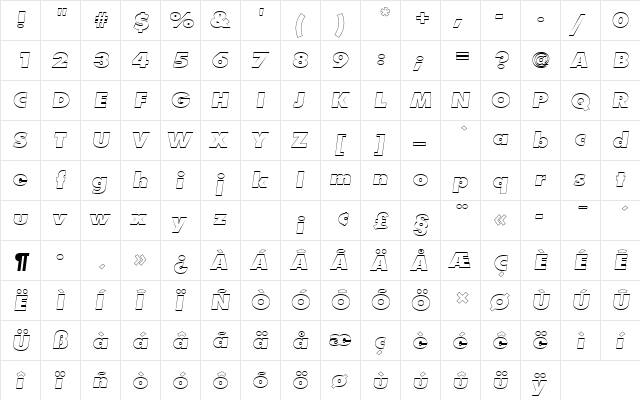
FuturaTExtBolOblOu1 Regular Font Preview
FuturaTExtBolOblOu1 Regular
Design Context for FuturaTExtBolOblOu1 Typeface
FuturaTExtBolOblOu1 channels digital-age aesthetics through its sharp, structured letterforms — ideal for brands that want to signal innovation.
Pro Tip: Use FuturaTExtBolOblOu1 in combination with a neutral sans for body text. Let it define the brand voice in headlines while keeping reading comfortable elsewhere.